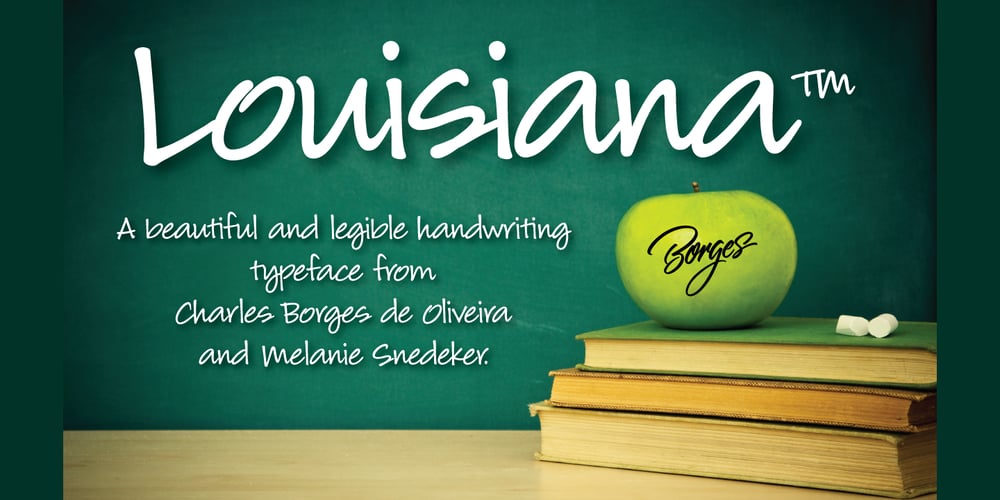
Louisiana Font Family was designed by Charles Borges de Oliveira, Melanie Snedeker and published by Borges Lettering. Louisiana contains 2 styles and family package options. Louisiana originated from the lovely handwriting style of Melanie Snedeker. Lettering Artist Charles Borges de Oliveira then refined the letter forms to produce this one of a kind handwriting script. When you need a legible handwriting font, Louisiana is the perfect choice. Louisiana Grab Bag is a fun little add-on to Louisiana. Chockfull of arrows, smiley faces and other little goodies.